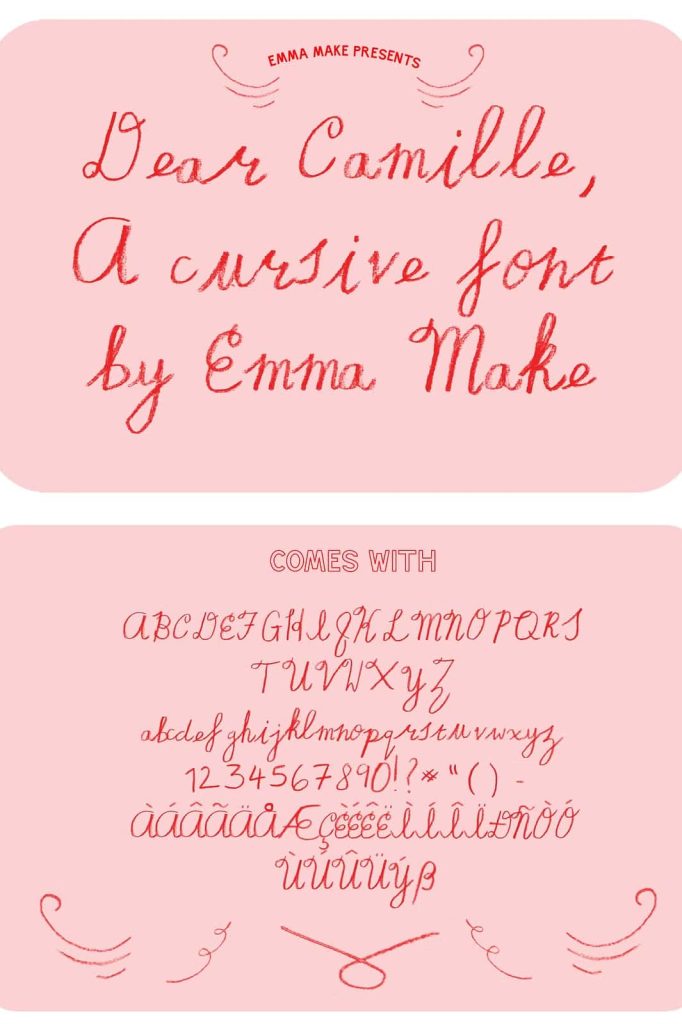
Dear Camille; A truly cursive fontdezzignerJune 5, 2025Fonts A truly cursive font; Dear Camille, is a sweet handwritten pencil crayon type with as much tenderness and character Download